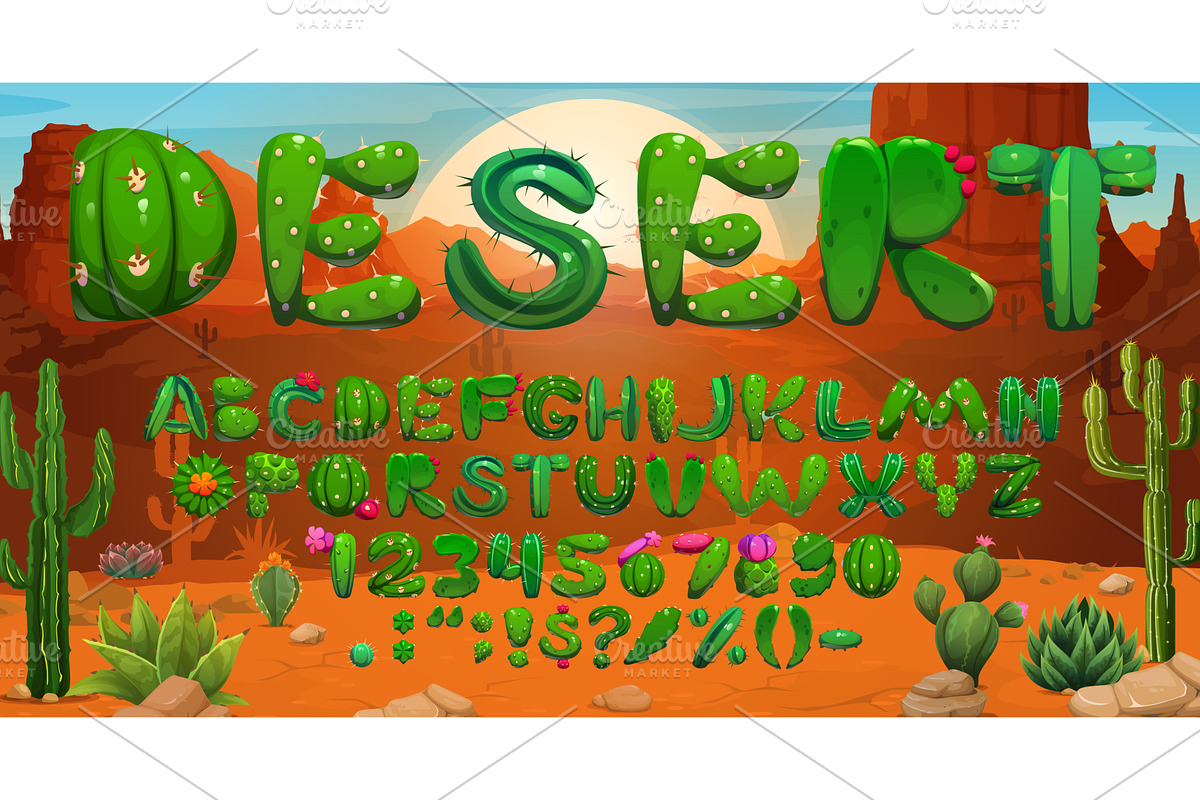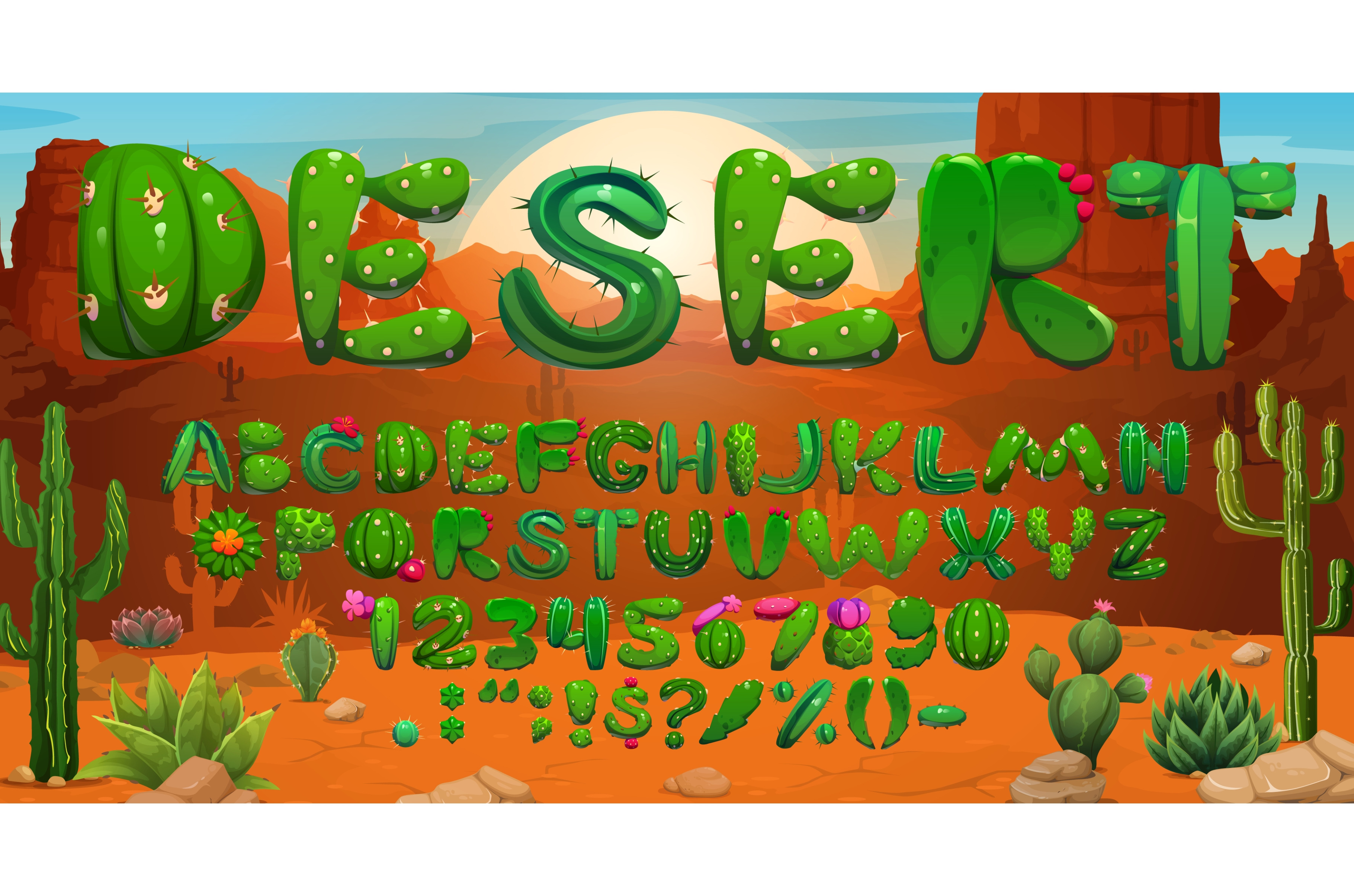
Cactus font, succulent typeface
Cactus font, succulent typeface, Mexican cacti type, English alphabet, signs and numbers. Cartoon vector funny abc characters with thorns and flowers. Desert typography made of green plants and spines